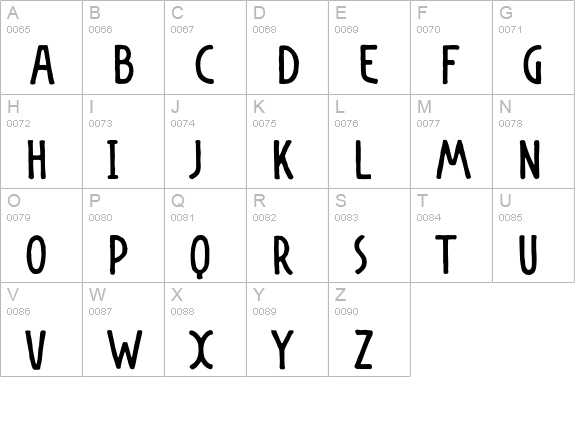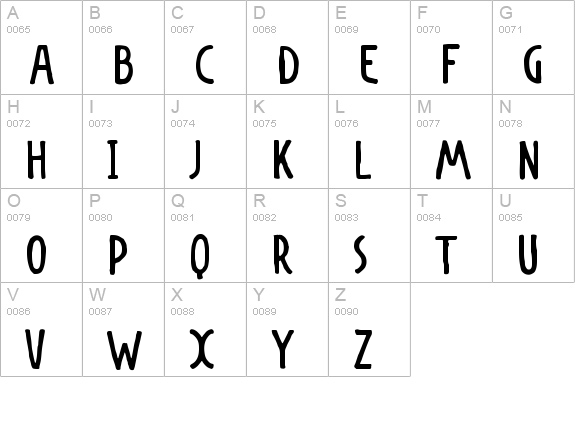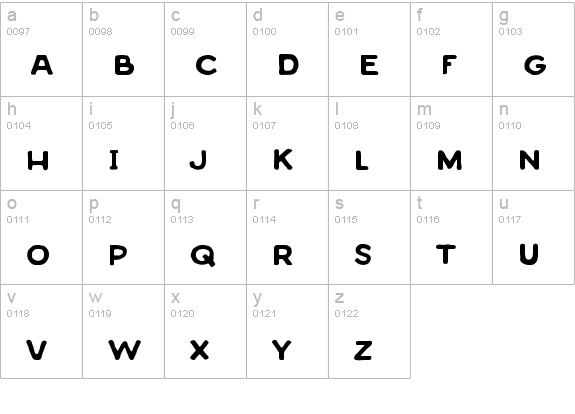
Desiderata Font Details
Desiderata font is a stunning and versatile typeface that exudes elegance and sophistication. With its clean lines and balanced proportions, Desiderata is perfect for a wide range of design projects, from invitations to branding materials. This font effortlessly combines modernity with a touch of classic charm, making it a timeless choice for any creative endeavor. The best part? Desiderata font is completely free to download at FontsMarket.com. Whether you're a seasoned designer looking to add a new font to your collection or a beginner exploring typography for the first time, Desiderata is a must-have addition to your toolkit. Its seamless legibility and graceful curves will elevate your designs to new heights, making a lasting impression on your audience. Download Desiderata font today and unleash your creativity with this exceptional typeface that is sure to inspire and delight. Don't miss out on the opportunity to enhance your projects with the beauty and versatility of Desiderata font, available for free at FontsMarket.com.